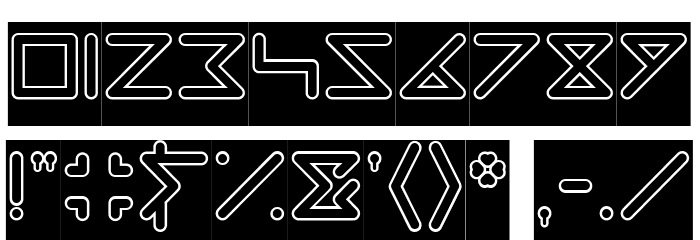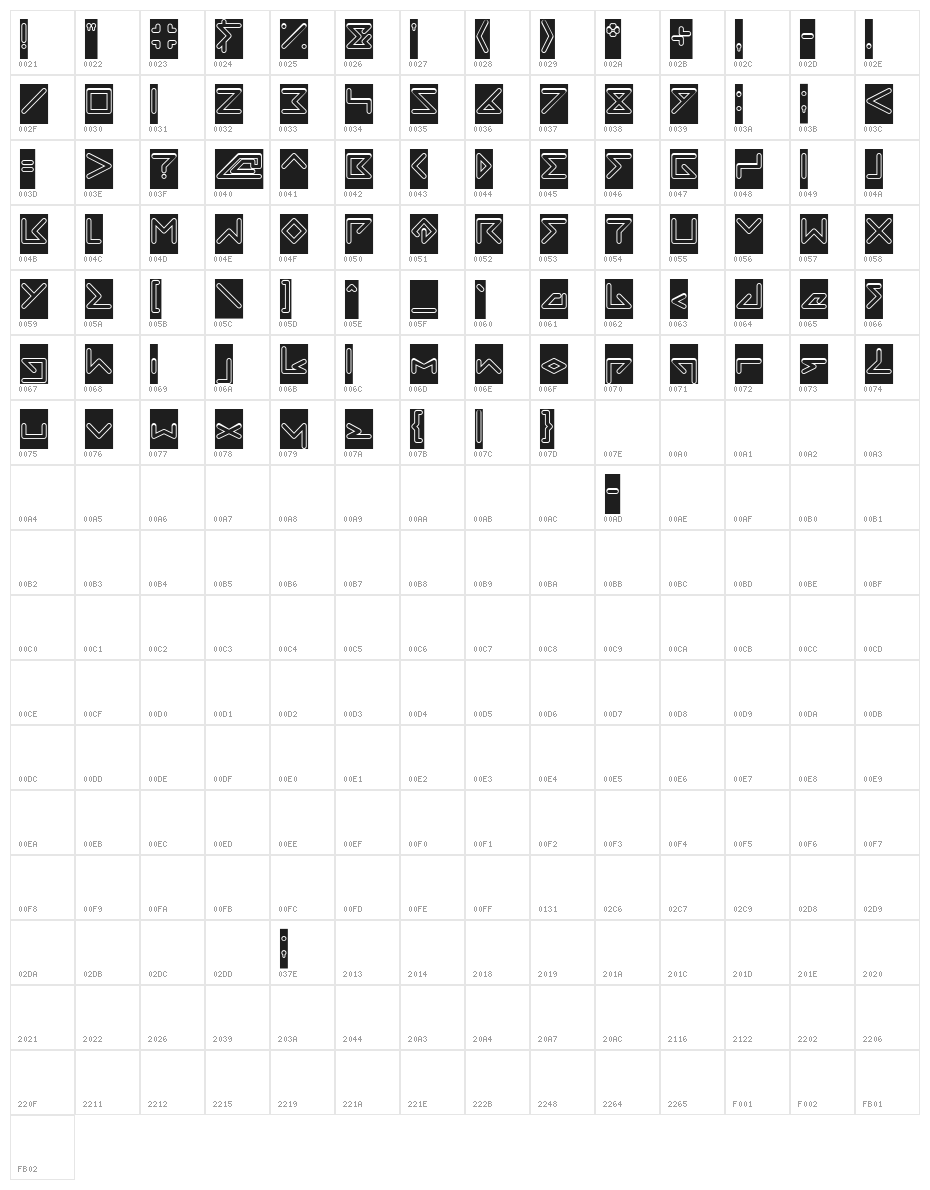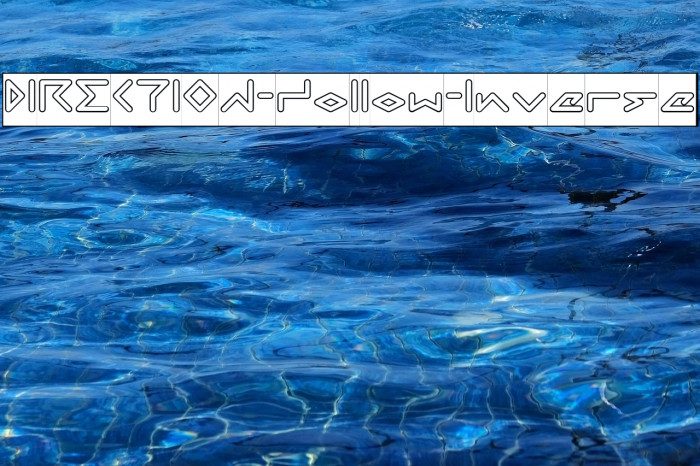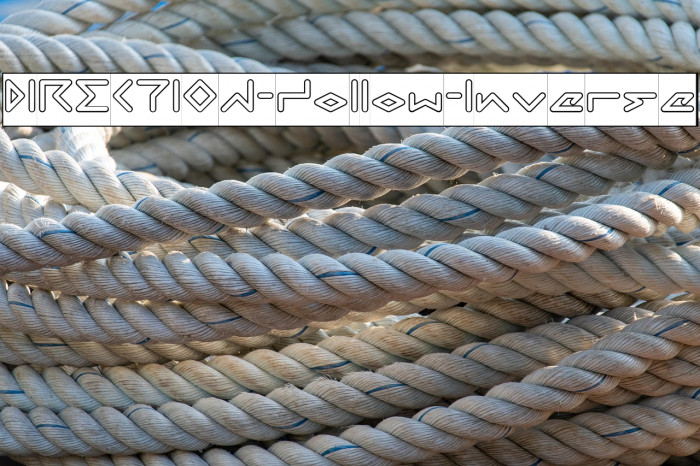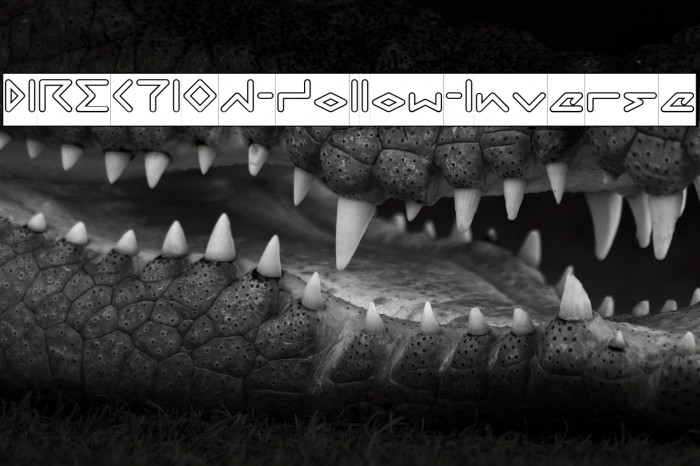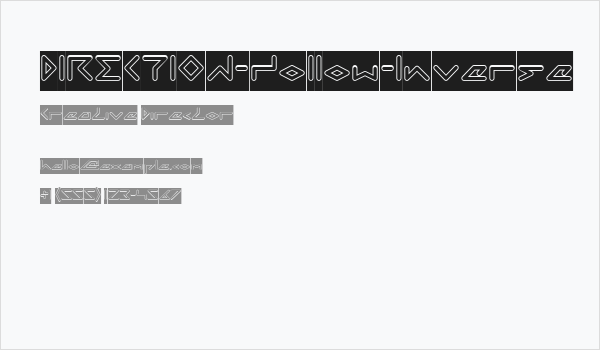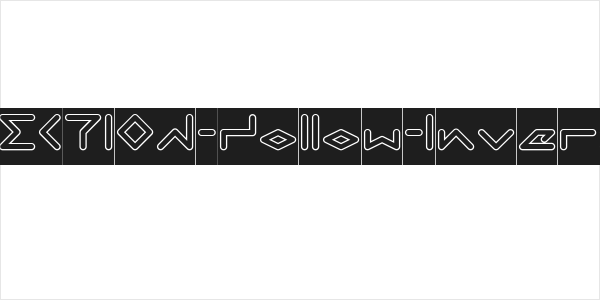
DIRECTION-Hollow-Inverse Font
DIRECTION-Hollow-Inverse Description
This font features a unique hollow design with an inverse style, creating a striking visual effect. The characters are outlined with a consistent stroke width, giving them a futuristic and geometric appearance. The uppercase and lowercase letters maintain a cohesive look, with angular and sharp edges that contribute to its modern aesthetic. Numbers and special characters follow the same design principles, ensuring uniformity across all glyphs. The font's hollow nature allows for creative use of background colors and textures, making it versatile for various design applications.
| Proposed Projects | Ideal for sci-fi themed projects, modern branding, digital artwork, and creative posters. |